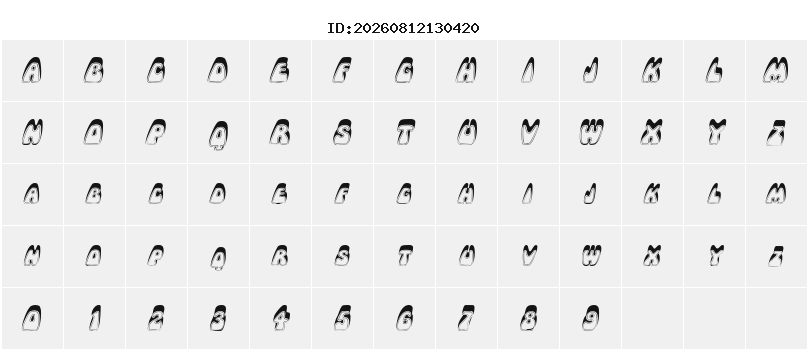
• Font Name: RobleRoundedSCapsSSK
• Font ID: Macromedia Fontographer 4.1 RobleRoundedSCapsSSK Italic
• Full Font Name: RobleRoundedSCapsSSK Italic
• PostScript Name: RobleRoundedSCapsSSKItalic
About RobleRoundedSCapsSSK.ttf
RobleRoundedSCapsSSK.ttf is a modern, elegant sans-serif font designed for ultimate readability and visual harmony. Perfect for branding, headlines, web design, and print materials.